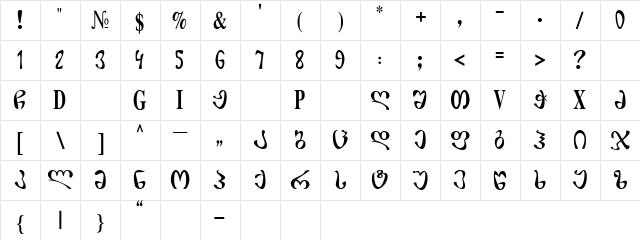
Phunji Mtavruli Regular
Design Context for Phunji Mtavruli Typeface
Phunji Mtavruli takes a measured approach to typography — its balanced proportions and neutral character make it a reliable workhorse for both digital and print work.